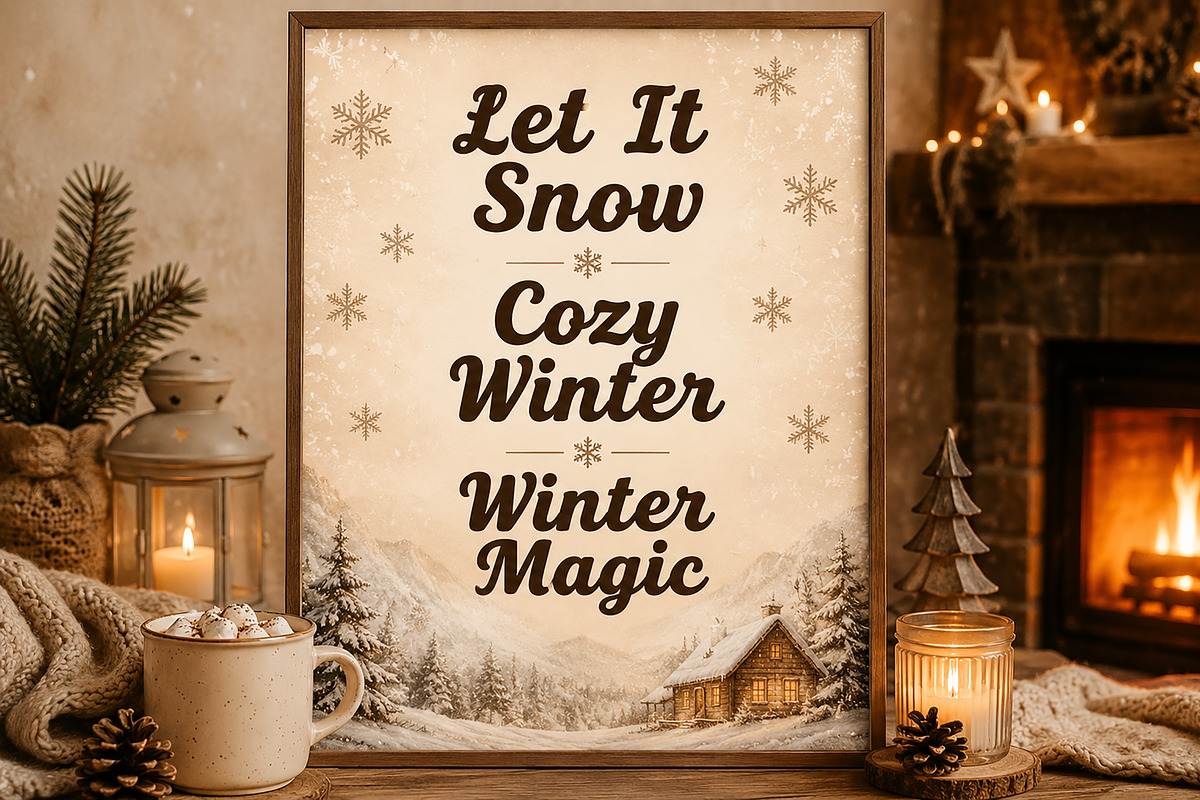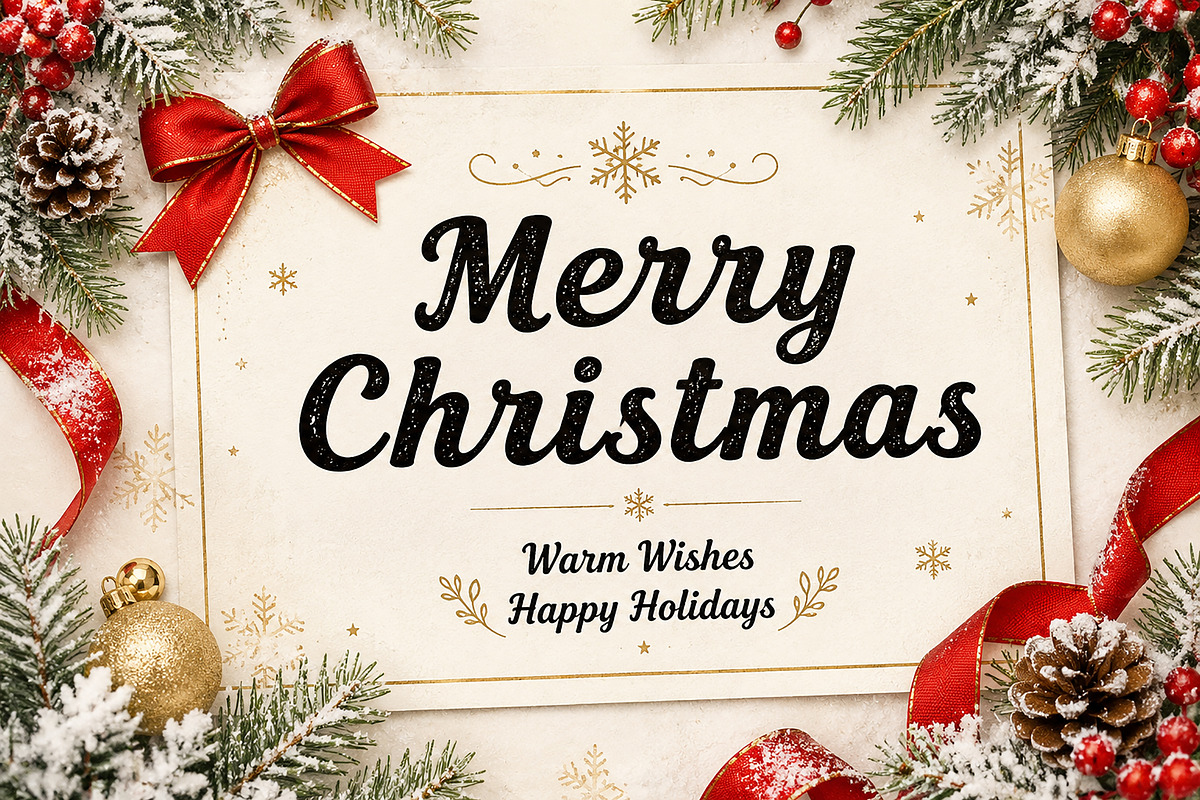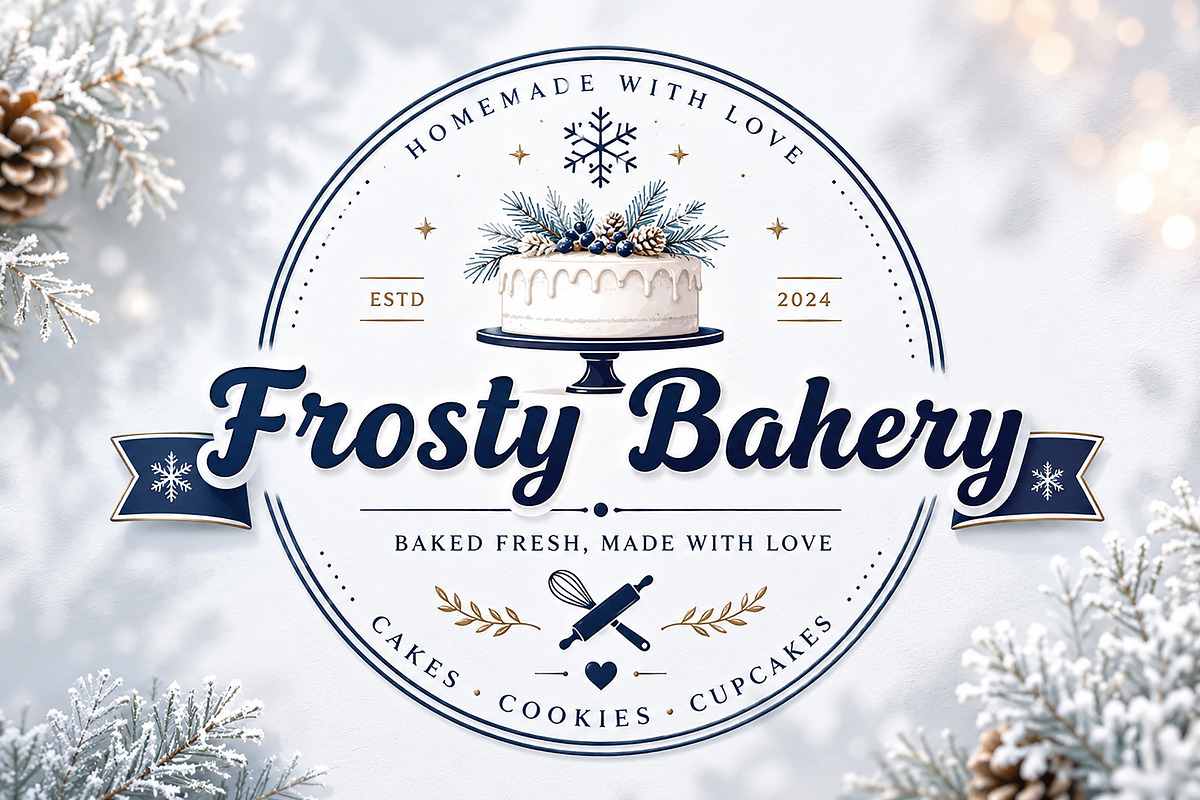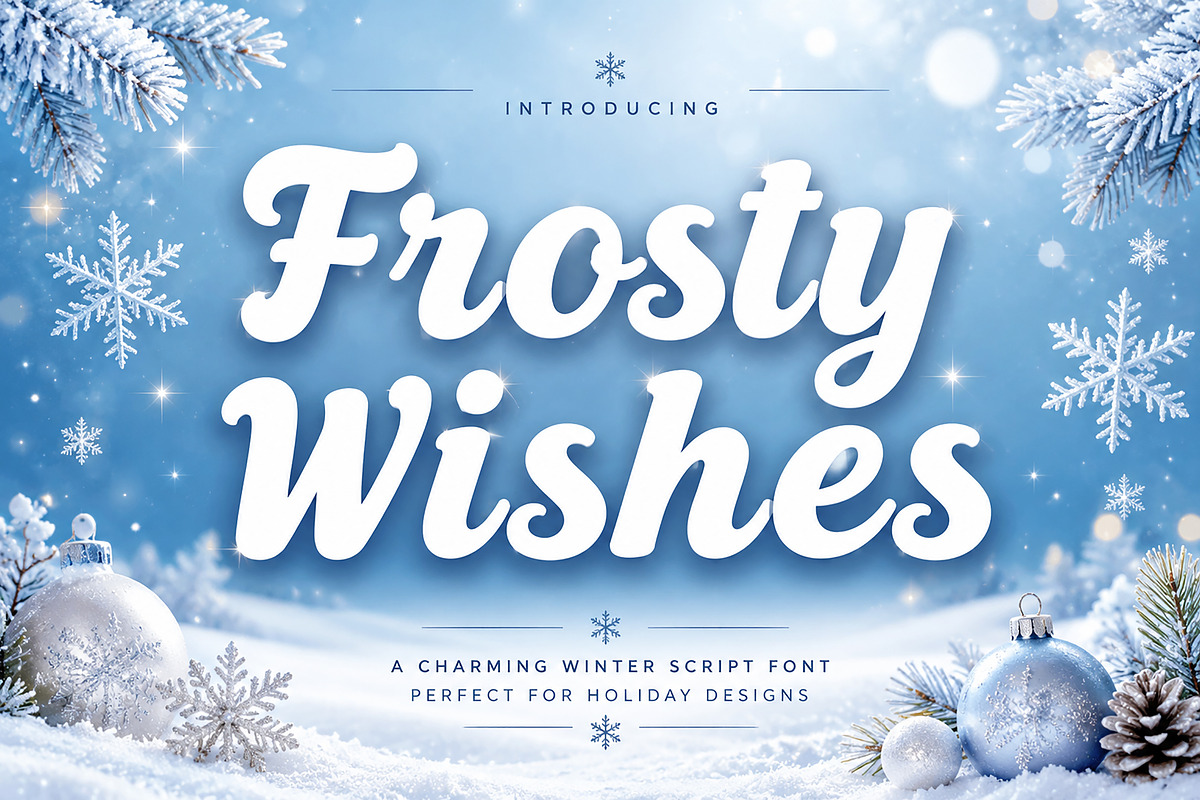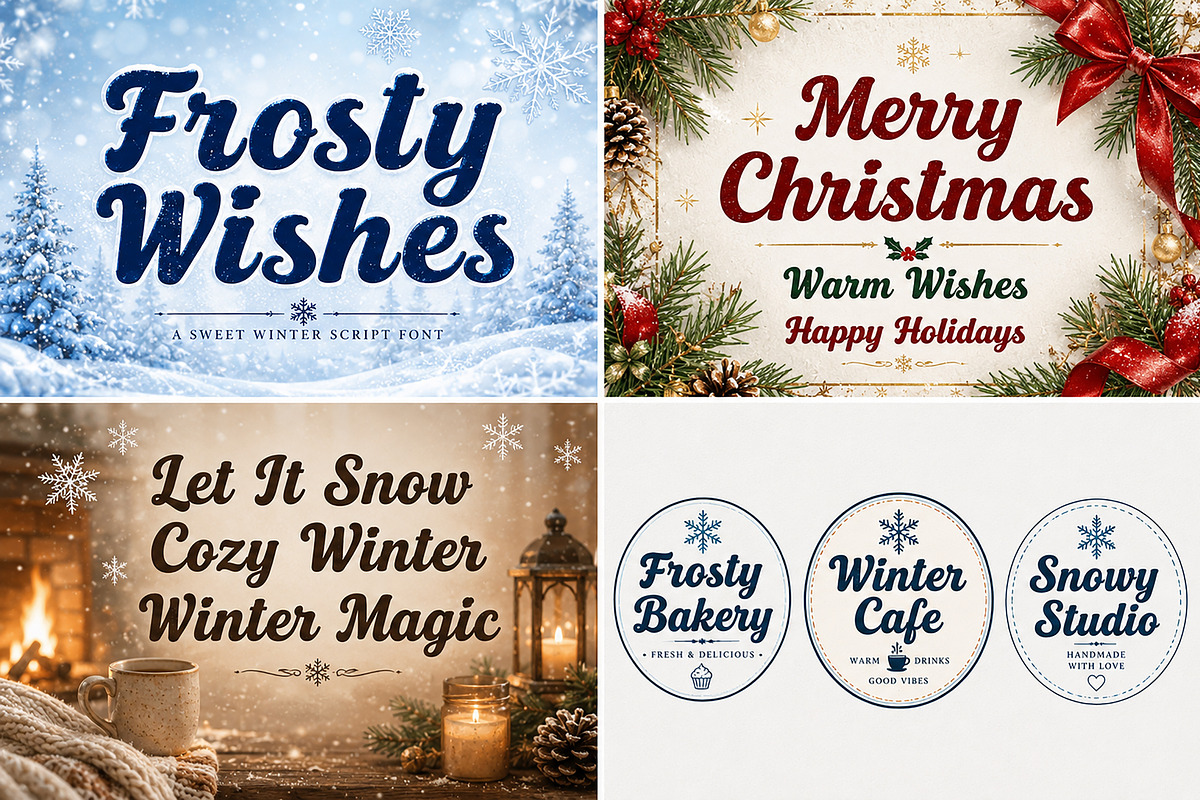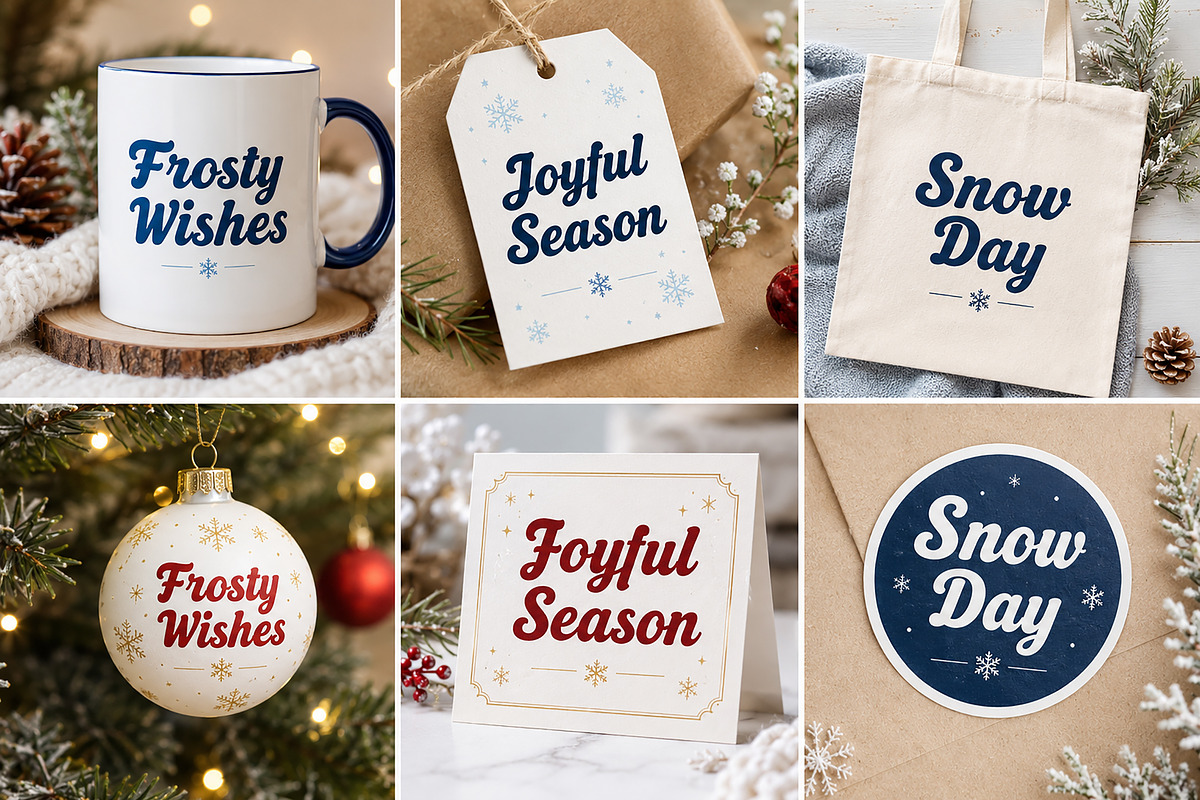
Frosty Wishes
Frosty Wishes – Christmas Script Font
Description
Frosty Wishes is a charming and festive Christmas script font designed to bring warmth, joy, and holiday magic to your creative projects. Featuring smooth curves, playful swashes, and a cozy handwritten style, this font is perfect for seasonal designs that need a touch of winter elegance.
Whether you're creating Christmas cards, holiday invitations, gift tags, winter quotes, festive branding, social media graphics, or printable decorations, Frosty Wishes delivers a cheerful and heartwarming look that captures the spirit of the season.
Its friendly script style makes it ideal for both personal and commercial projects, helping your designs stand out with a handcrafted holiday feel.
Christmas Cards
Holiday Invitations
Winter Quotes
Gift Tags & Labels
Seasonal Branding
Bakery & Café Logos
Greeting Cards
Social Media Posts
Printable Wall Art
Cricut & Craft Projects
Stickers & Merchandise
Holiday Packaging
Uppercase & Lowercase Letters
Smooth Handwritten Script Style
Easy to Read
Bring the magic of winter and the joy of Christmas to your designs with Frosty Wishes!